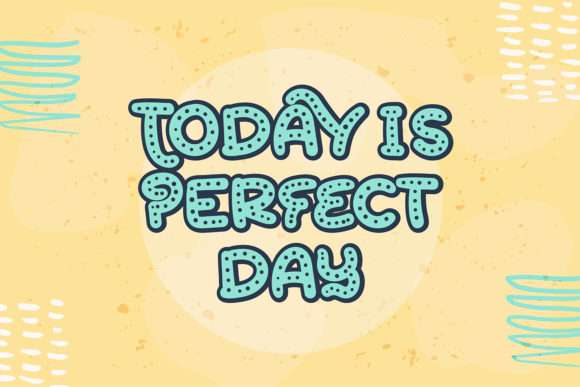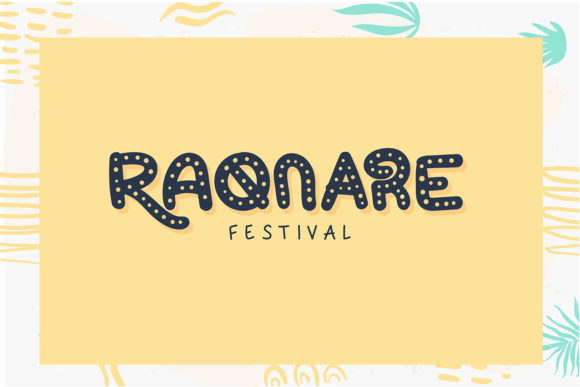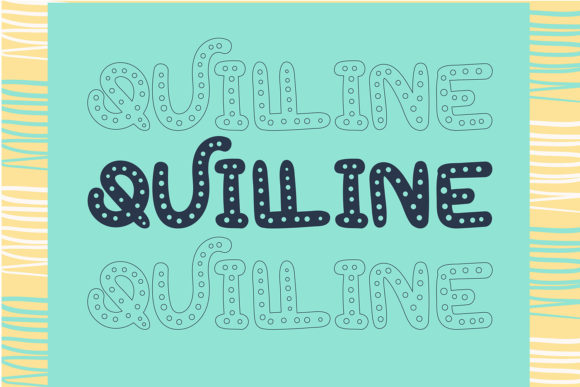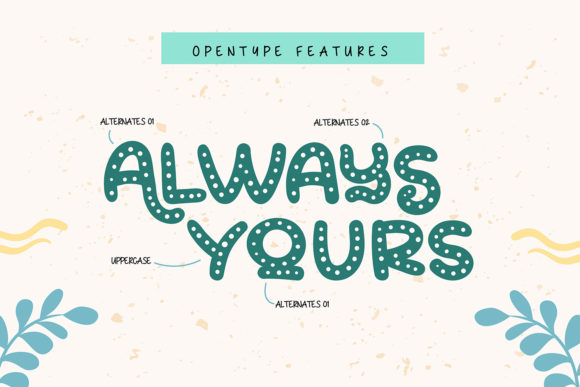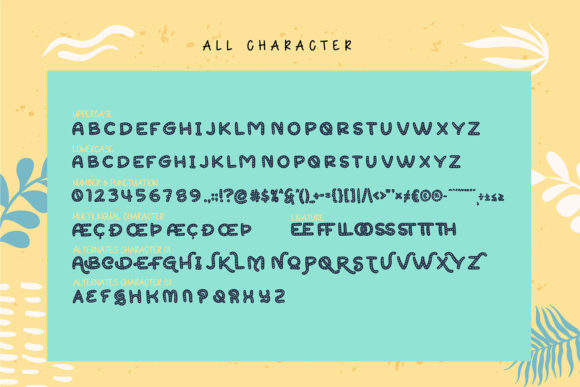
Unlock the Magic of Your Designs with Funtastic Font
Have you ever been stuck on a design project, searching for the perfect font to bring your vision to life? I know I have! There’s nothing quite like the feeling of finally finding that elusive font that makes all the difference. It’s like stumbling upon a hidden treasure, and it’s exactly what you’ll experience with the Funtastic Font.
This cool, unique, and friendly display font is designed to transport your designs into a magical world, where the ordinary becomes extraordinary. With its modern and whimsical style, Funtastic Font is the perfect addition to any design project that needs a touch of personality and flair. Whether you’re a seasoned designer or just starting out, this font is sure to become your go-to choice for adding a dash of fun and creativity to your work.
- Unique Characteristics: Funtastic Font features a unique blend of playful and elegant elements, with intricate details and flourishes that set it apart from other fonts.
- Scalability: Funtastic Font is designed to be highly scalable, retaining its clarity and legibility even at small font sizes or when enlarged.
Funtastic Font Review
First off, I have to say that the Funtastic Font has some great qualities ✨. The playful, whimsical feel of this font is perfect for designs that need a bit of personality. The curves and flourishes add a touch of elegance without being too over-the-top. I also appreciate the wide range of weights and styles, making it easy to find the perfect fit for any project.
The Funtastic Font also performs well in terms of legibility, even at smaller font sizes ✨. This makes it a great choice for body text or titles in digital designs. Additionally, the font is highly versatile and can be used in a variety of contexts, from children’s books to advertising campaigns.
However, I do have a few concerns ⚠️. The font’s bold weights can sometimes feel a bit too bold, overpowering the rest of the design. Additionally, some of the more ornate flourishes can be a bit too flashy for certain projects.
Overall, I think the Funtastic Font is a great addition to any designer’s toolkit. While it may not be perfect for every project, its unique personality and wide range of styles make it a great choice for designers looking to add a bit of flair to their work.
- Pros: Whimsical feel, wide range of weights and styles, legible at small sizes
- Cons: Bold weights can be overpowering, ornate flourishes can be too flashy
For best results, use Funtastic Font in titles, headings, and emphasis text.
It’s also great for creating playful and eye-catching graphics.
Experiment with different font sizes and colors to achieve the desired effect.
Common use cases include social media graphics, blog posts, and marketing materials.